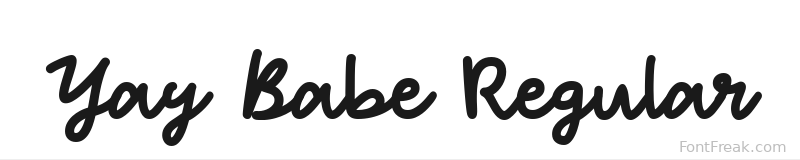
Yay Babe Regular
Yay Babe Regular is a delightful handwritten font designed by Misti Hammers, perfect for adding a personal touch to any project. This font falls into the script category, characterized by its fluid, cursive style that exudes warmth and friendliness. The strokes are moderately thick, providing a balanced weight that makes the text both legible and visually appealing. The gentle curves and playful loops add a unique charm, while the spacing ensures that each letter flows seamlessly into the next, enhancing readability.
This versatile font is an excellent choice for a variety of applications. It shines in wedding invitations, where its romantic flair can set the perfect tone for the big day. Additionally, it works beautifully for greeting cards, making heartfelt messages stand out. Small business owners can utilize Yay Babe Regular for branding elements like logos and packaging, giving their products a distinct identity. Content creators looking to enhance their social media graphics will find this font ideal for eye-catching posts and stories. Lastly, it can be used effectively in restaurant menus to convey a casual, inviting atmosphere.
Targeting graphic designers, small business owners, and content creators alike, Yay Babe Regular offers a playful yet professional aesthetic. Its unique character makes it suitable for projects that require a blend of fun and sophistication.
In conclusion, Yay Babe Regular font free download is a standout choice for anyone seeking a handwritten style that captures attention and evokes emotion. Its charming design and practical versatility make it an essential addition to any typographic toolkit, ensuring your projects resonate with authenticity and creativity.